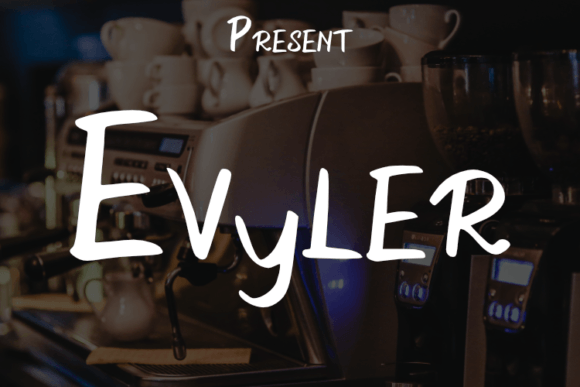
Introducing Evyler Font, the ultimate script typeface that will transform your designs into captivating works of art! Crafted by the renowned Eric Kusuma, Evyler embodies elegance and a touch of modernity, making it the perfect choice for discerning tastemakers.
Its meticulously designed curves and flowing lines exude a timeless sophistication that will elevate your logos, book and movie titles, fashion brands, magazines, clothing, and more. With Evyler Font, your designs will command attention and leave a lasting impression.
Whether you're a seasoned designer or simply seeking to add a touch of allure to your projects, Evyler Font is your perfect companion. Its versatility extends across a wide range of applications, empowering you to unleash your creativity and create designs that resonate with your audience.
Experience the magic of Evyler Font today and elevate your designs to new heights!